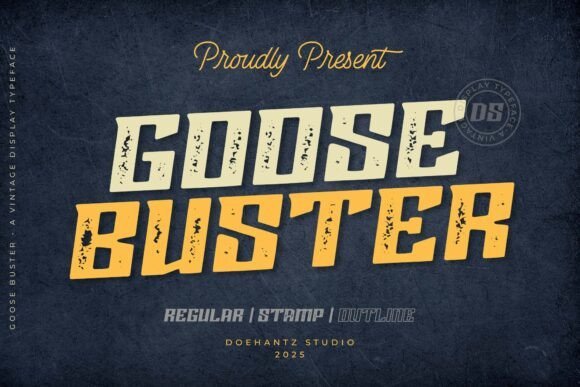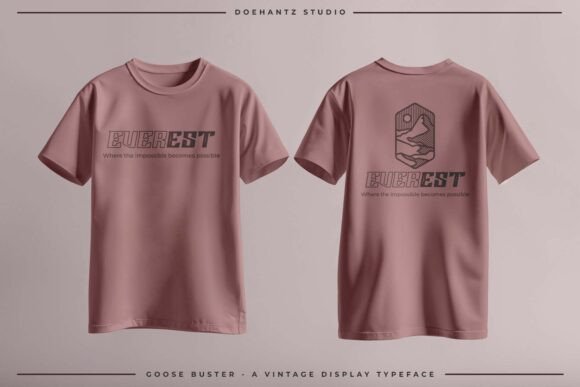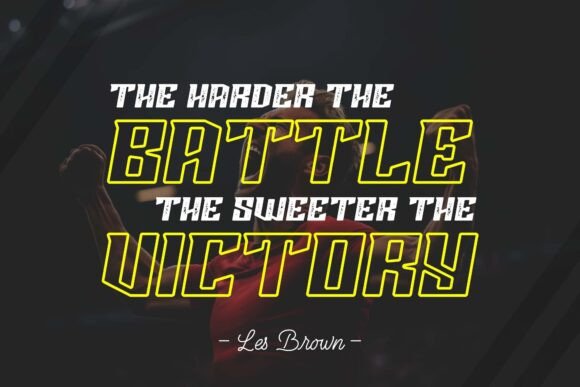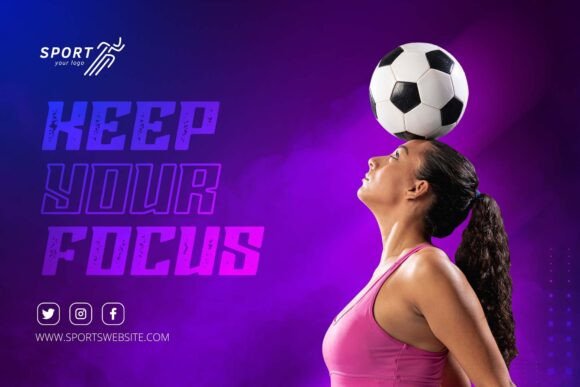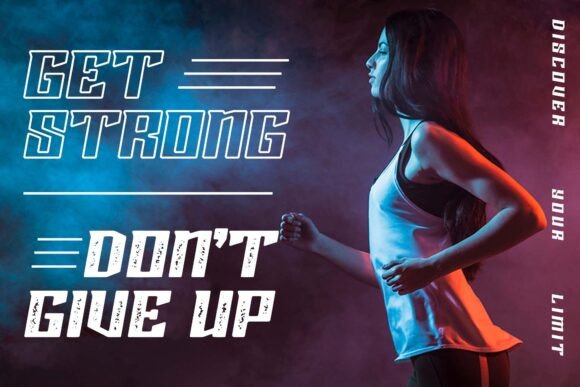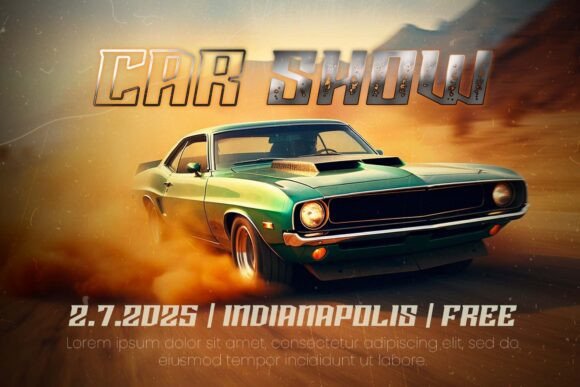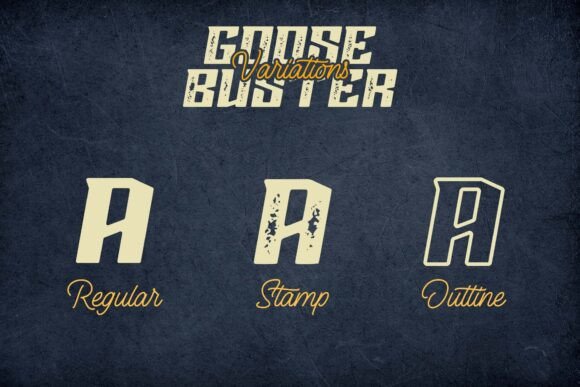
A Timeless Design Companion: Discover the Goose Buster Font
You’ve poured your heart and soul into designing the perfect layout, but something’s missing – that special something that transports your audience to a bygone era. You know that feeling, don’t you?
Enter the Goose Buster Font, a captivating display typeface that embodies the essence of vintage elegance. With its trio of styles – regular, stamp, and outline – this font is the perfect companion for designers seeking to infuse their work with a touch of retro sophistication. Whether you’re working on a sports-themed project or simply want to add a dash of nostalgia to your designs, Goose Buster Font is the ideal choice. Its rugged yet refined look makes it a versatile and valuable asset for any designer, capable of bridging the gap between classic and contemporary styles.
Goose Buster Font Key Features
- Font Family: Goose Buster is a unique, hand-drawn font designed to resemble a goose’s beak.
- Unique Characteristics: The font’s distinctive, hand-drawn feel and the use of bold lines and curves create a playful, yet elegant look that is perfect for adding a touch of whimsy to designs.
Designer Review: Goose Buster Font
Goose Buster Font is a quirky and playful typeface that could work well in certain contexts. The font has a unique charm that can add character to designs ✨. I particularly like the way the font handles ligatures, which can create interesting and dynamic text arrangements ✨.
However, there are some limitations to consider ⚠️. The font is not ideal for body text, as it can be difficult to read in large blocks of text ⚠️. The font also lacks a clear x-height, which can make it challenging to set text at smaller sizes ⚠️.
Additionally, the font’s bold weight can feel a bit heavy-handed, which may not be suitable for all designs ⚠️. The font also doesn’t include a range of language support, which can limit its use in global contexts ⚠️.
Overall, Goose Buster Font is a fun and creative typeface that can add a unique touch to designs. However, its limitations mean it’s best suited for use in specific contexts, such as branding or titles ✨.
- Unique charm and character
- Interesting ligatures
- Playful and quirky feel
- Limited language support
- Not ideal for body text
Goose Buster Font is ideal for:
- Creating eye-catching posters and flyers
- Designing logos and branding materials
- Adding a unique touch to presentations and reports